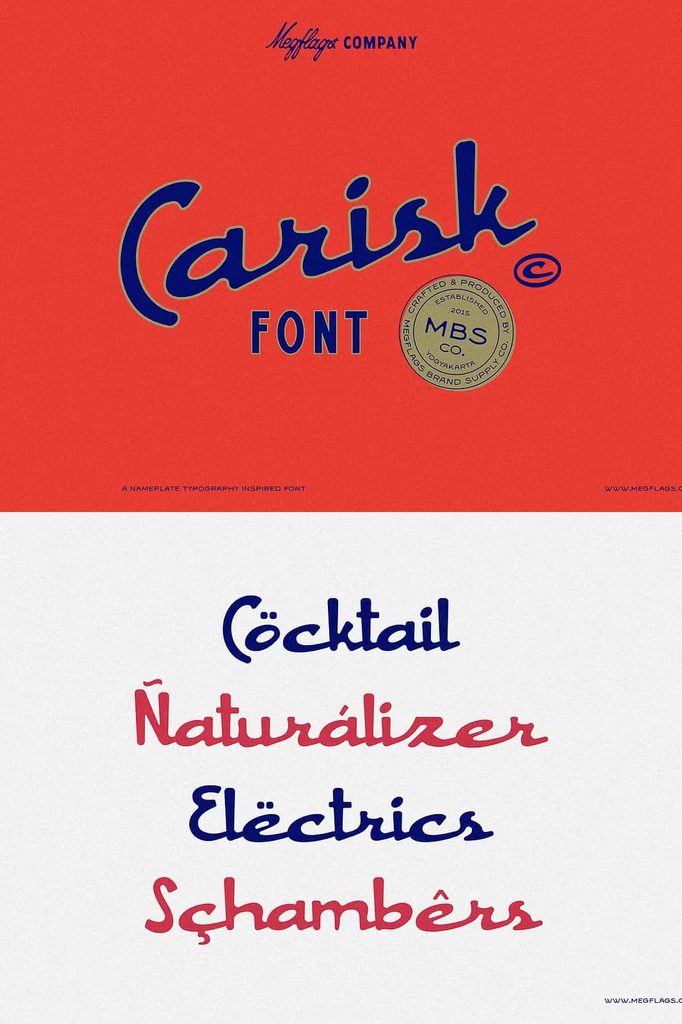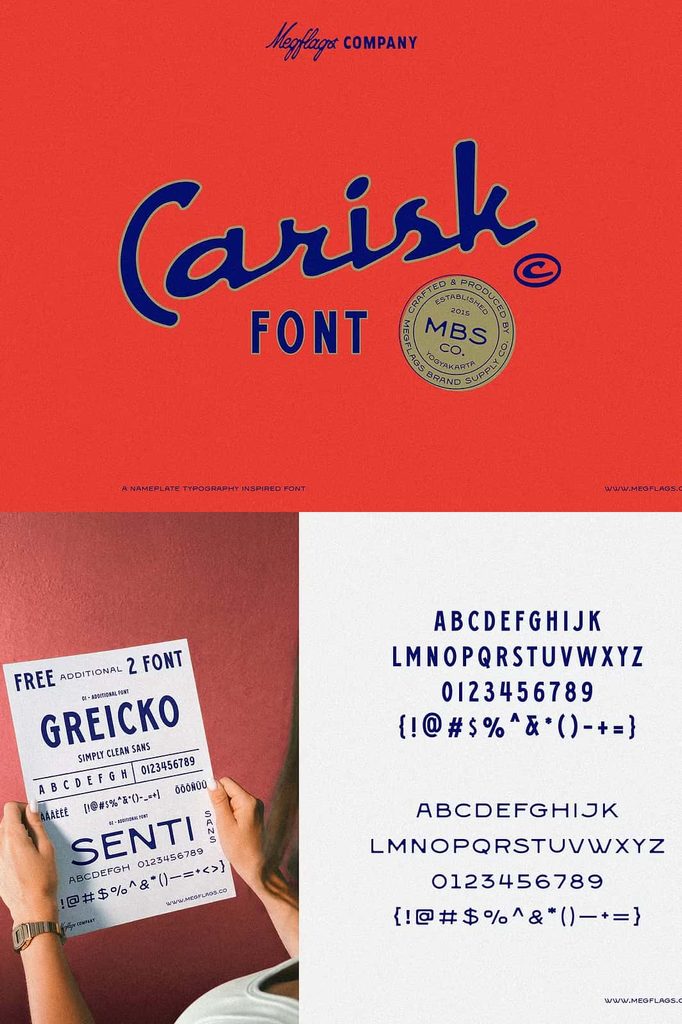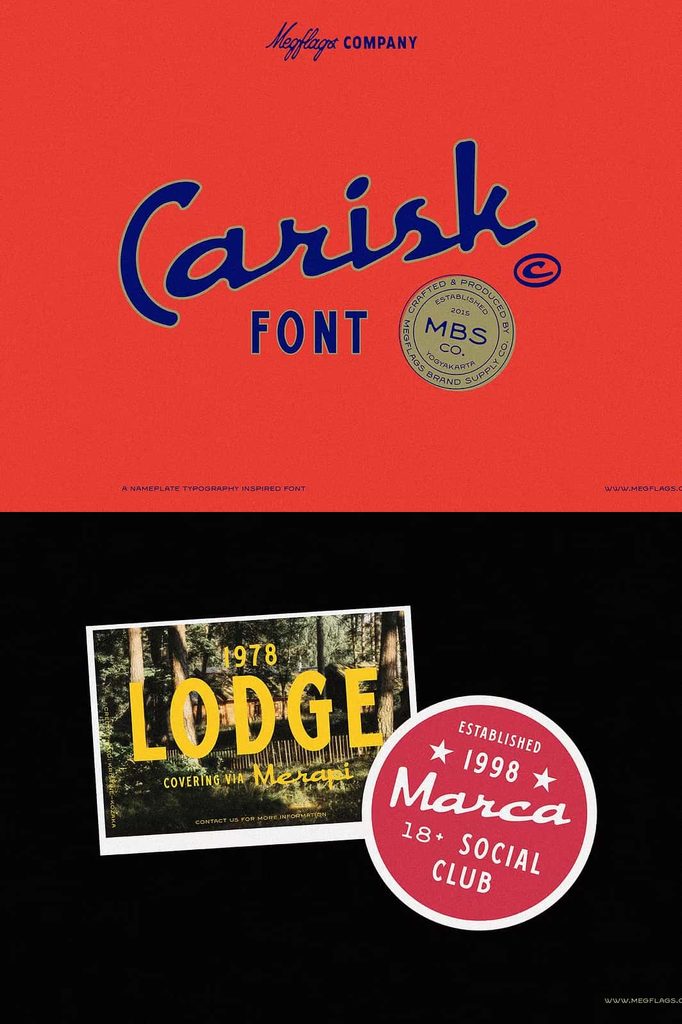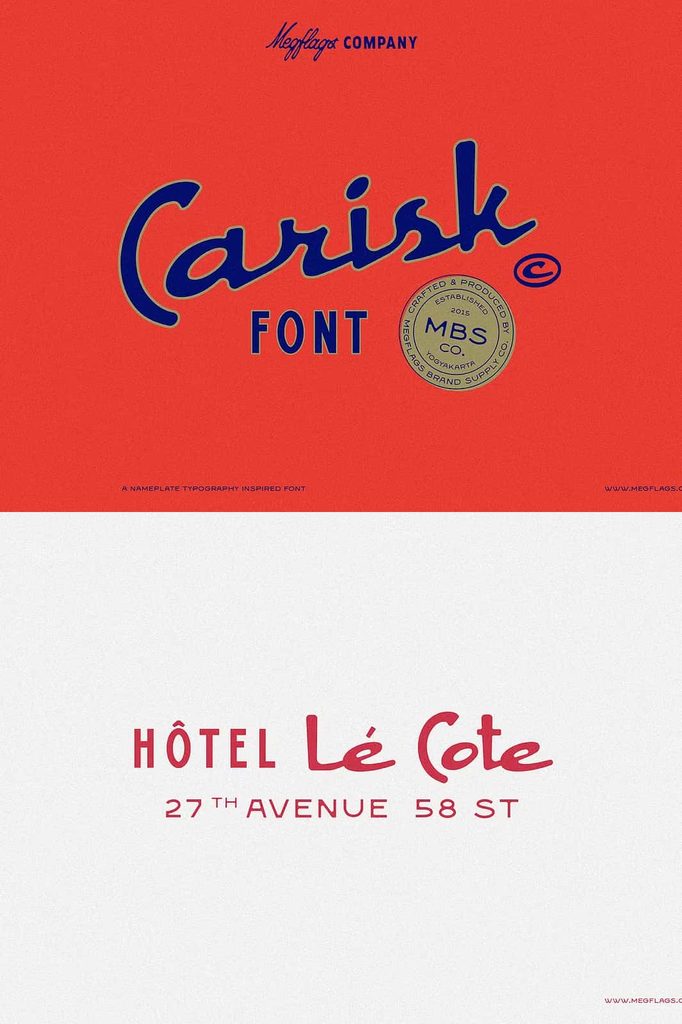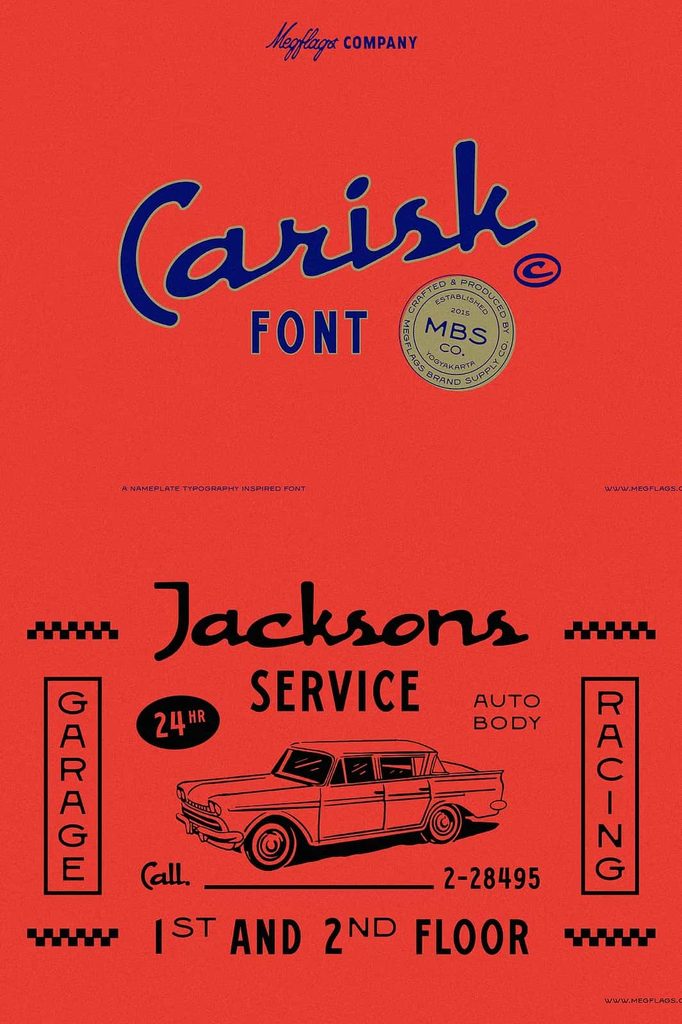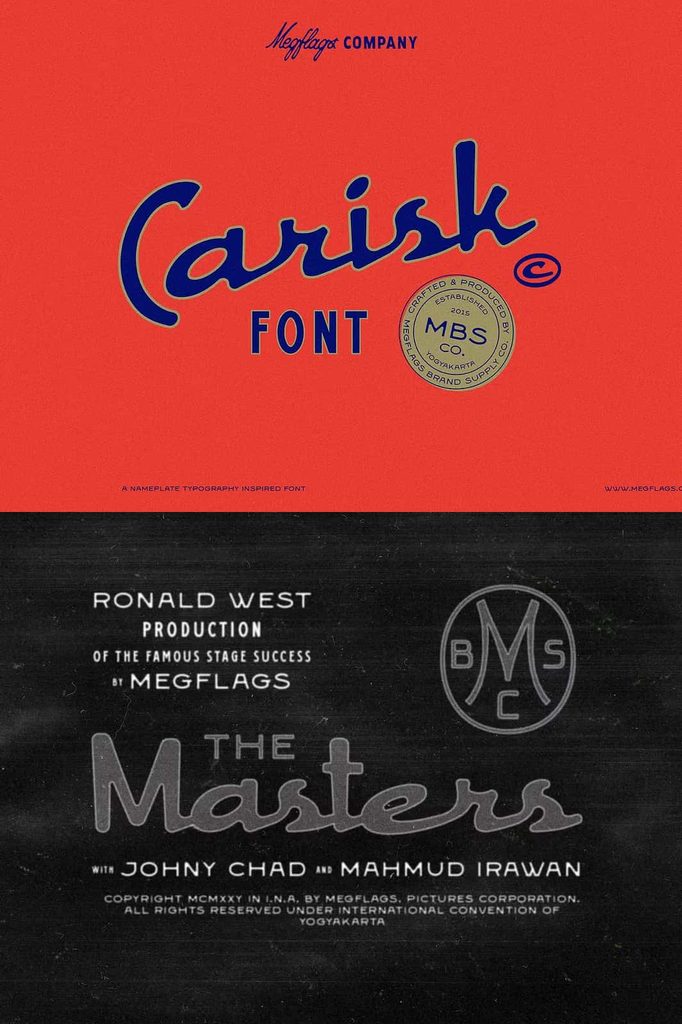
Carisk
Carisk Font
Carisk Font captures the timeless character of vintage nameplates and transforms that classic aesthetic into a bold display typeface for modern design. Inspired by the lettering found on old buildings, classic automobiles, industrial machinery, and iconic metal signs, Carisk brings a strong sense of heritage and craftsmanship to every composition.
Its visual personality reflects the distinctive appearance of metal-cast lettering. The bold forms create an immediate presence, while the vintage influence gives your designs an authentic, established character. Carisk works especially well when you want typography to become the central visual element rather than simply supporting other graphics.
Whether you are creating a retro-inspired logo, automotive branding, packaging, signage, posters, merchandise, or promotional artwork, Carisk Font gives you a powerful way to communicate strength and nostalgia. Its display-oriented character makes it particularly effective for short words, titles, headlines, and brand names that need to command attention.
Vintage Nameplate Inspiration
Carisk draws inspiration from the enduring typography of vintage nameplates. Old buildings often featured carefully crafted lettering that identified businesses, manufacturers, institutions, and landmarks. Classic cars displayed distinctive badges and emblems that became an important part of their identity. Industrial machinery also used bold lettering to communicate information while creating a recognizable visual presence.
Carisk brings these influences together in a contemporary display typeface. The result feels familiar yet flexible, allowing designers to recreate the atmosphere of vintage signage without limiting their work to historical applications.
The metal-cast influence gives the typeface a substantial appearance. When you combine Carisk with textured backgrounds, metallic effects, shadows, distressed surfaces, or industrial imagery, you can strengthen its vintage character even further. Alternatively, place it on a clean background to create a modern interpretation of classic lettering.
Bold Typography for Strong Visual Impact
Carisk Font makes a statement. Its bold display construction allows short words and phrases to stand out immediately, making the typeface ideal for designs that depend on strong visual recognition. Use it for headlines, titles, logos, badges, labels, and other prominent typographic elements.
Its commanding appearance works particularly well when you want to communicate durability, confidence, tradition, or mechanical strength. The vintage influence adds personality, while the bold lettering creates the visual weight needed for high-impact compositions.
For the strongest results, keep headlines concise and give the lettering enough space to become the focal point. You can also experiment with scale, alignment, and spacing to create different moods. A large Carisk headline can dominate a poster, while a smaller treatment can create a refined badge or label.
Perfect for Automotive Design
The connection between Carisk and classic automobile nameplates makes it a natural choice for automotive projects. Use the font to create logos, vehicle graphics, garage branding, restoration projects, racing-inspired artwork, automotive posters, merchandise, and promotional materials.
Carisk can help establish the atmosphere of a classic garage or vintage automotive workshop. Pair it with illustrations of classic vehicles, mechanical components, racing stripes, badges, or period-inspired layouts to build a cohesive visual identity.
You can also use the font for modern automotive concepts. Combine its heritage-inspired appearance with clean layouts and contemporary graphics to create a design that balances nostalgia and modernity.
Industrial and Mechanical Branding
Carisk Font also fits naturally into industrial and mechanical design. Its bold character can reinforce themes of engineering, manufacturing, tools, machinery, construction, and craftsmanship. Use it for company logos, equipment labels, workshop signage, product packaging, posters, and promotional campaigns.
The typeface can help communicate a sense of reliability and durability. These qualities make it useful for brands that want to emphasize practical craftsmanship rather than delicate or decorative aesthetics.
For an authentic industrial appearance, combine Carisk with metal textures, rivets, worn surfaces, bolts, workshop photography, or mechanical illustrations. You can also simplify the composition and allow the typography alone to carry the visual identity.
Vintage Branding and Logo Design
Carisk provides a strong foundation for vintage-inspired logos. Its nameplate influence makes it particularly effective for businesses that want an established and recognizable identity. Designers can use the typeface to create wordmarks, badges, emblems, labels, and decorative brand marks.
Consider using Carisk for restaurants, cafés, motorcycle brands, automotive businesses, workshops, clothing labels, breweries, outdoor companies, tool manufacturers, and other businesses that benefit from a heritage-inspired appearance.
When designing a logo, combine Carisk with simple shapes and supporting typography. A circular badge, horizontal nameplate, shield, or rectangular frame can reinforce the vintage identity. Keep secondary elements restrained so the main lettering remains easy to recognize.
Ideal for Posters and Advertising
Carisk can add immediate character to posters and promotional graphics. Its bold display appearance helps headlines compete effectively with photography and illustration. Use it for event posters, automotive advertisements, product campaigns, vintage-themed promotions, and retro-inspired marketing materials.
Large typography can create a dramatic focal point, especially when you combine Carisk with high-contrast layouts and strong imagery. You can also layer the typeface with subtle texture to simulate the appearance of an aged metal sign or painted nameplate.
For contemporary campaigns, place Carisk against a clean background and use minimal supporting graphics. This approach allows the vintage character of the typeface to stand out without making the design feel outdated.
Packaging and Merchandise Applications
Carisk Font can strengthen product packaging and merchandise by giving designs a recognizable vintage identity. Use it on labels, boxes, tins, apparel, stickers, posters, patches, mugs, signs, and other branded products.
The nameplate-inspired style works especially well for products that emphasize craftsmanship, durability, heritage, or authenticity. Designers can create packaging that feels established and trustworthy even when the brand itself is new.
For merchandise, use Carisk as the main graphic element. A short brand name, slogan, or bold phrase can become an attractive centerpiece for apparel and promotional products. Pair it with simple illustrations or decorative borders to create a complete vintage composition.
Recommended Design Applications
• Vintage logo and branding projects
• Automotive logos and graphics
• Classic car restoration designs
• Garage and workshop branding
• Industrial company identities
• Machinery and engineering graphics
• Vintage signage and nameplates
• Posters and advertisements
• Product packaging and labels
• Apparel and merchandise designs
• Badges, emblems, and patches
• Retro promotional materials
Create Authentic Vintage Signage
Signage remains one of the strongest applications for Carisk Font. Its inspiration from physical nameplates makes it naturally suited to designs that need a tactile, dimensional appearance. Use it for storefront signs, workshop signs, event displays, directional graphics, or decorative wall art.
You can enhance this effect by applying metallic textures, embossed treatments, bevels, shadows, or distressed finishes in your preferred design software. These effects can simulate the appearance of cast metal or aged lettering while allowing you to maintain control over the overall composition.
For a cleaner modern interpretation, skip the textures and use Carisk as a flat graphic. The strong letterforms can still communicate the influence of vintage nameplates without requiring additional effects.
Pair Carisk with Complementary Fonts
Because Carisk has a strong display personality, it can work effectively with simpler supporting fonts. Pair it with a clean sans serif for descriptions, body text, or secondary information. This contrast creates hierarchy and prevents the design from becoming visually overwhelming.
You can also combine Carisk with a classic serif when you want to emphasize its heritage-inspired qualities. Use Carisk for the main title and the serif for supporting details such as dates, descriptions, or location information.
When pairing fonts, allow Carisk to remain the primary visual element. Its bold character already provides plenty of personality, so a restrained secondary typeface usually produces the most balanced result.
Why Choose Carisk Font?
Carisk Font gives designers a distinctive way to bring vintage nameplate aesthetics into contemporary projects. Its bold lettering captures the visual strength of classic cars, old buildings, and industrial machinery while providing enough flexibility for modern branding and graphic design.
The typeface works particularly well when you want your design to communicate heritage, strength, craftsmanship, reliability, and nostalgia. It can create an established appearance for new brands and add authenticity to projects inspired by historical visual culture.
Final Thoughts
Carisk Font transforms the bold character of vintage metal-cast lettering into a versatile display typeface. Inspired by classic nameplates, automobiles, old architecture, and industrial machinery, it brings strength and heritage to modern graphic design.
Use Carisk for logos, automotive branding, signage, posters, packaging, merchandise, industrial identities, badges, and promotional artwork. Its strong display character allows short words and headlines to take center stage, while its vintage influence adds depth and personality.
Whether you want to recreate the atmosphere of an old automotive badge or build a completely new brand with a heritage-inspired identity, Carisk gives you a compelling typographic foundation. Combine it with suitable imagery, textures, shapes, and supporting fonts to create designs that feel bold, memorable, and timeless.